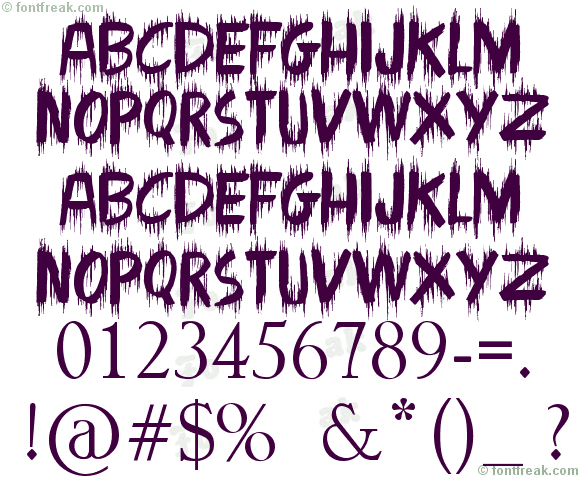
Madman Howling
Madman Howling, crafted by Jonathan S. Harris, is a striking display font that falls into the category of decorative typefaces. This unique font features a bold and jagged aesthetic, characterized by its irregular stroke weight and sharp edges that evoke a sense of wildness and energy. The design incorporates a chaotic texture, giving it a hand-painted appearance that enhances its expressive character. The spacing between letters is tight, contributing to a sense of urgency and intensity, making it visually compelling for various creative projects.
This font shines in specific use cases where a strong visual impact is desired. It is particularly suitable for movie posters, especially in the horror or thriller genres, where its edgy style can effectively convey tension and excitement. Additionally, Madman Howling is an excellent choice for album covers, especially for rock or punk music, as it encapsulates a rebellious spirit. It can also be used in event flyers, especially for festivals or parties, where capturing attention quickly is vital. Restaurant menus that aim for a quirky or unconventional vibe can benefit from this font's unique flair, inviting diners to experience something different.
The target audience for this font includes graphic designers looking to infuse their work with bold creativity, small business owners seeking to establish a memorable brand identity, and content creators who want to make their projects stand out.
What makes the Madman Howling font particularly remarkable is its ability to evoke emotions and set a tone instantly. Its distinctive style ensures that it will not only capture attention but also leave a lasting impression. For those interested, the Madman Howling font free download offers a fantastic opportunity to incorporate this exceptional typeface into various design projects.